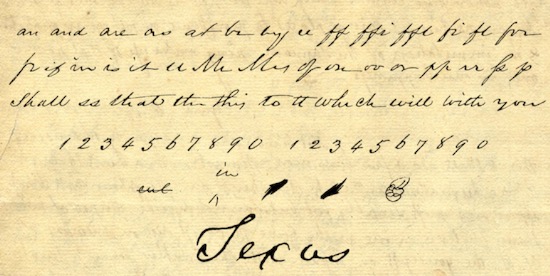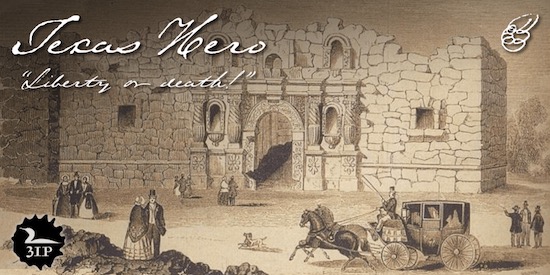
Texas Hero font is a classic and historical Handwritten Script font that was designed and released by Three Islands Press. Texas Hero font looks incredibly equally classy and charming. This gorgeous natural handwritten font is a sincere homage to a truly vintage signature.
Texas Hero is a modern elegant handwritten font. And it can make your logo or writing cool and versatile. Texas Hero font is suite for business card, stationery, apparel, photography, invitations, greeting cards, photo overlays, unique branding, watermark, posters, wedding, fashion, and more.
Texas Hero Handwritten font